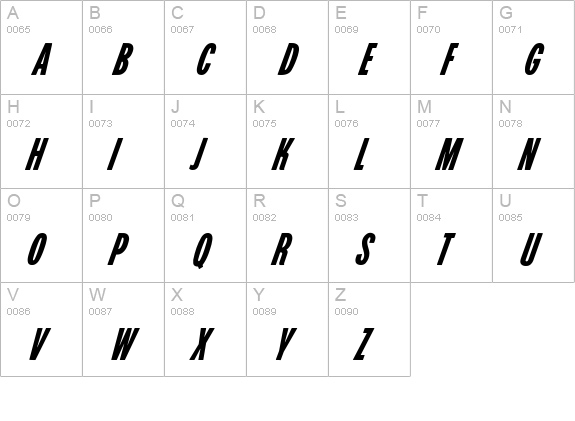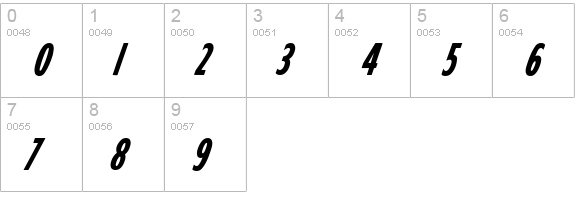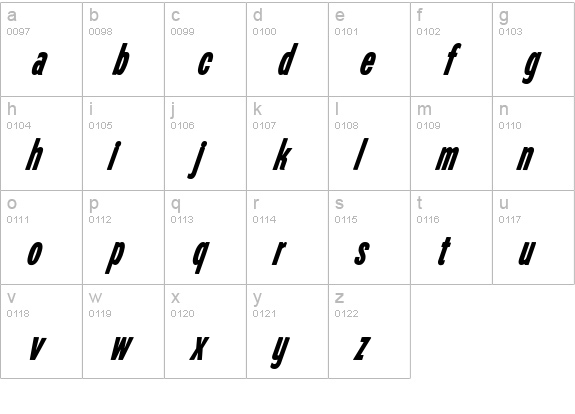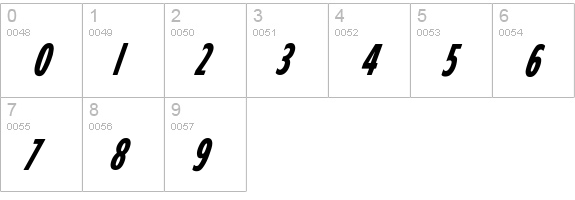
Electro Gothic HPLHS Font Details
The Electro Gothic HPLHS font is a strikingly bold and intricate typeface that perfectly captures the essence of gothic and electronic design elements. Its sharp lines and futuristic aesthetic make it a standout choice for projects that require a blend of modern and classic styles. The font's unique character set and detailed craftsmanship ensure that any text displayed in Electro Gothic HPLHS will leave a lasting impression on viewers. Best of all, this exceptional font is available for free download at FontsMarket.com. Whether you're a graphic designer looking to add a touch of edge to your creations or a writer seeking a font that conveys mystery and intrigue, Electro Gothic HPLHS is the perfect choice. Download it today and let your creativity shine with this captivating typeface.